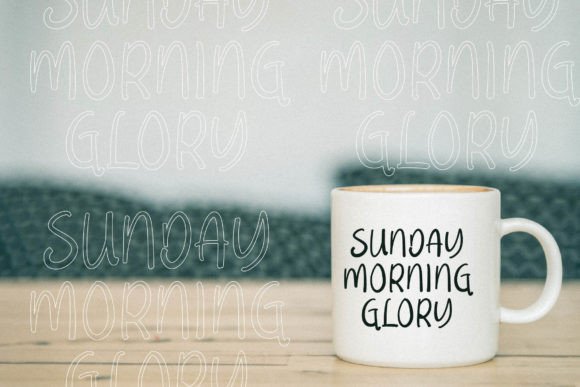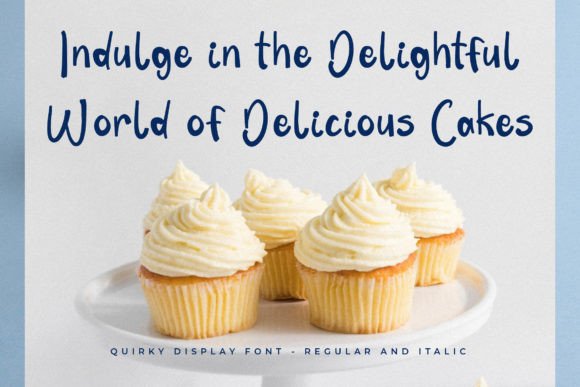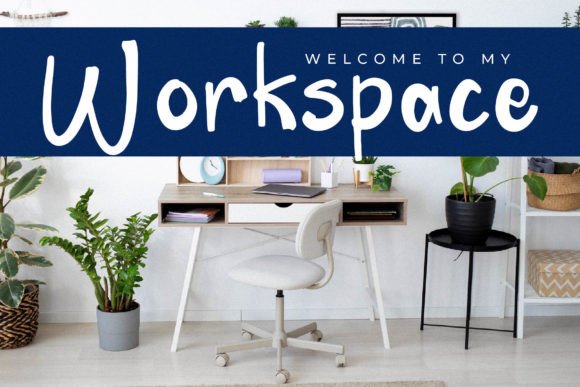
Introduction to Shirlock Font
As a designer, you know that moment when a single font can elevate an entire project from good to great. It’s like stumbling upon a hidden treasure that makes all the difference in the world. For me, that moment came when I discovered the Shirlock Font – a sweet and friendly handwritten font that has since become my go-to design resource.
With its natural and unique style, the Shirlock Font is incredibly versatile, making it a valuable addition to any designer’s toolkit. Whether you’re working on a high-quality creative project with a transparent background or need a font that can add a personal touch to your design, Shirlock Font is the perfect choice. Its free download has made it accessible to designers of all levels, and its high-quality design ensures that it will remain a trusted resource for years to come.
So, what sets Shirlock Font apart from other design fonts? In this article, we’ll delve into the world of this amazing font and explore why it’s a must-have for any designer looking to add a little extra magic to their creative projects.
Key Features of Shirlock Font
- High-quality, professional font suitable for creative projects and design resources.
- Transparent background, allowing for easy layering and composition in graphic design and digital art projects.
- Comes in a single weight, ideal for use in titles, headings, and body text where a clean and modern look is desired.
- Resolution-independent, ensuring crisp and clear display on various screen sizes and resolutions.
- Perfect for use in a variety of creative projects, including graphic design, digital art, and typography-based art forms.
Honest Review: Shirlock Font
I recently had the chance to work with the Shirlock Font for a creative project, and I must say I’m quite impressed. As a designer, it’s always exciting to discover new high-quality fonts that can elevate our work.
One of the things I love about the Shirlock Font is its clean and modern design. The transparent background makes it perfect for layered designs, and the font itself is incredibly versatile – it can work well for both digital and print projects.
Here are some of the things that work well:
- ✨ Clean and modern design
- ✨ Transparent background for seamless layering
- ✨ High-quality typography
That being said, there are a few limitations to keep in mind:
- ⚠️ Limited character set (not ideal for lengthy text)
- ⚠️ May not be suitable for complex designs due to its simplicity
Overall, I’m quite pleased with the Shirlock Font and would recommend it to designers looking for a high-quality, easy-to-use font for their creative projects. It’s a great addition to any design resource library, and I’m glad it’s available for free download.
The Shirlock Font is a high-quality design resource that offers a transparent background, making it ideal for creative projects. With its unique style and versatility, it’s a valuable addition to any design library.
Tips for Getting the Most Out of Shirlock Font
To get the most out of the Shirlock Font, experiment with different font sizes, colors, and combinations to create unique and eye-catching designs. You can also pair it with other high-quality design resources to enhance your creative project.
The Shirlock Font is suitable for a wide range of creative projects, including logos, brochures, posters, and social media graphics. Its transparent background and unique style make it an ideal choice for designers looking to add a touch of sophistication to their designs.
Is the Shirlock Font suitable for high-resolution designs?
Yes, the Shirlock Font is designed to be highly legible and clear, even at high resolutions. The font’s crisp, clean lines and precise typography ensure that it looks great on both low-resolution and high-resolution displays. This makes it an ideal design resource for a wide range of creative projects, from web design to print design and beyond.